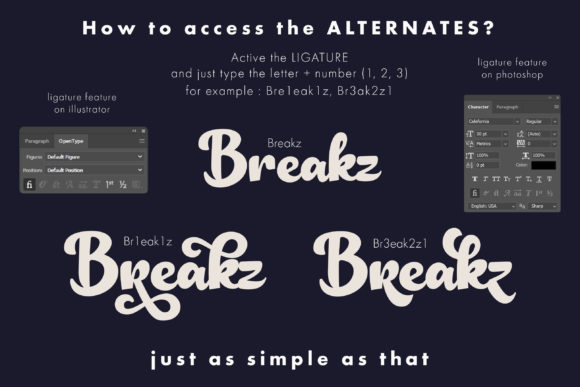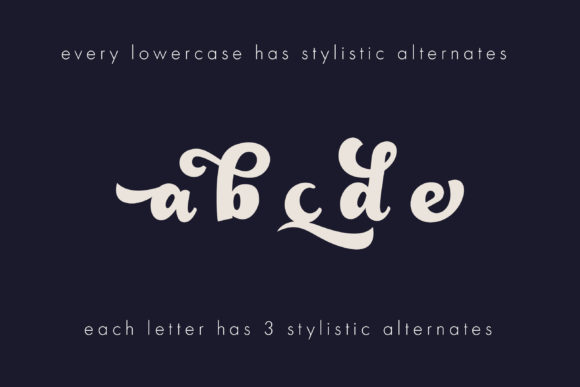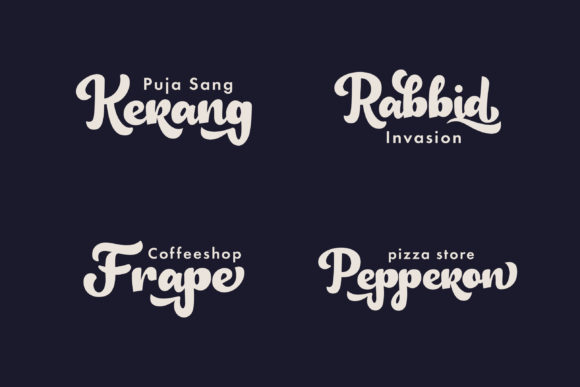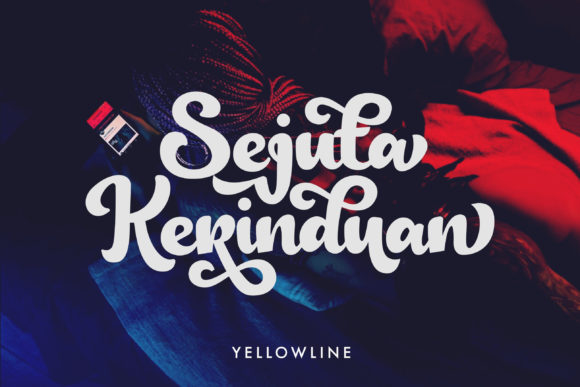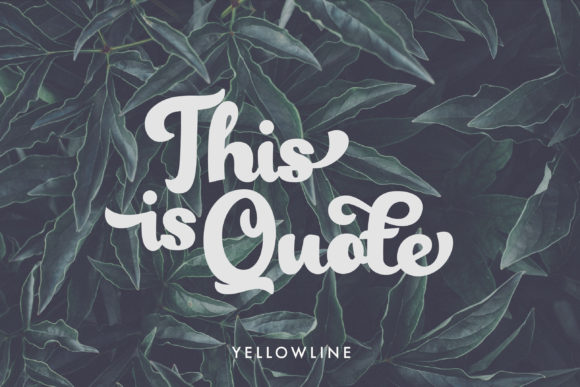
Calefornia Script Font
About Calefornia Script Font
Calefornia is a bold and fun handwritten font with a unique charm. It will turn any design project into a true stand out!